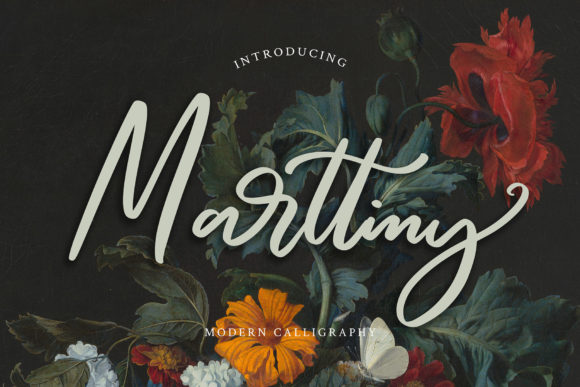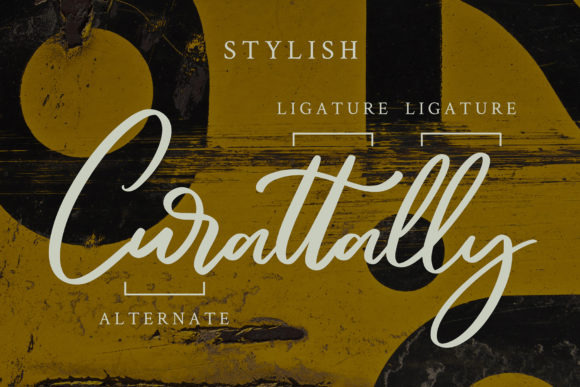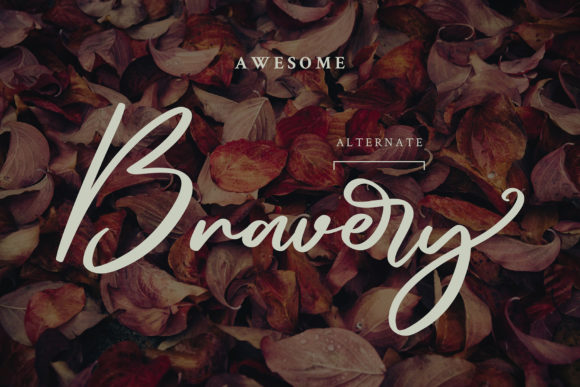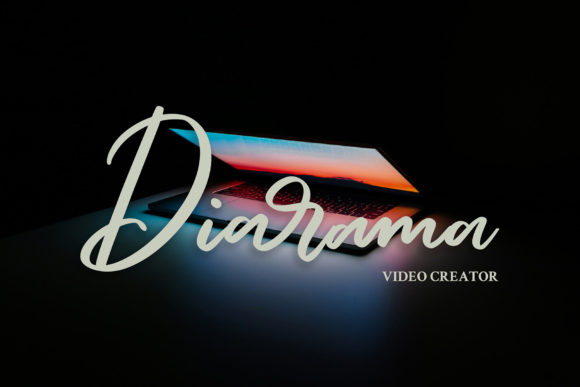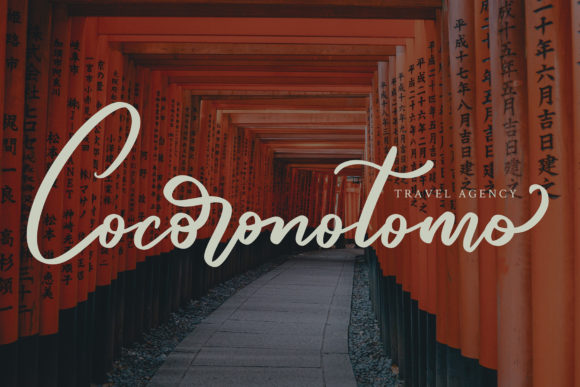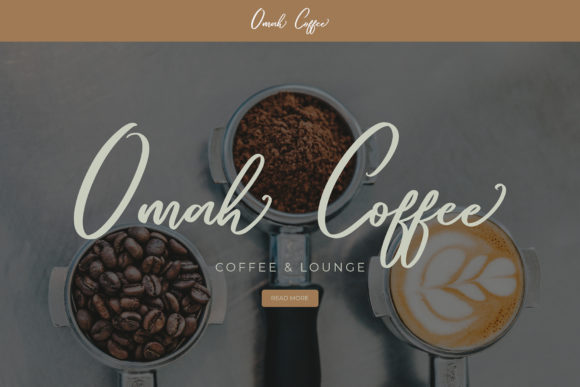
Marttiny Font
About Marttiny Font
Marttiny is a timeless and flowing handwritten font. Fall in love with its incredibly versatile style and use it to create gorgeous wedding invitations, beautiful stationary art, eye-catching social media posts, and much more!